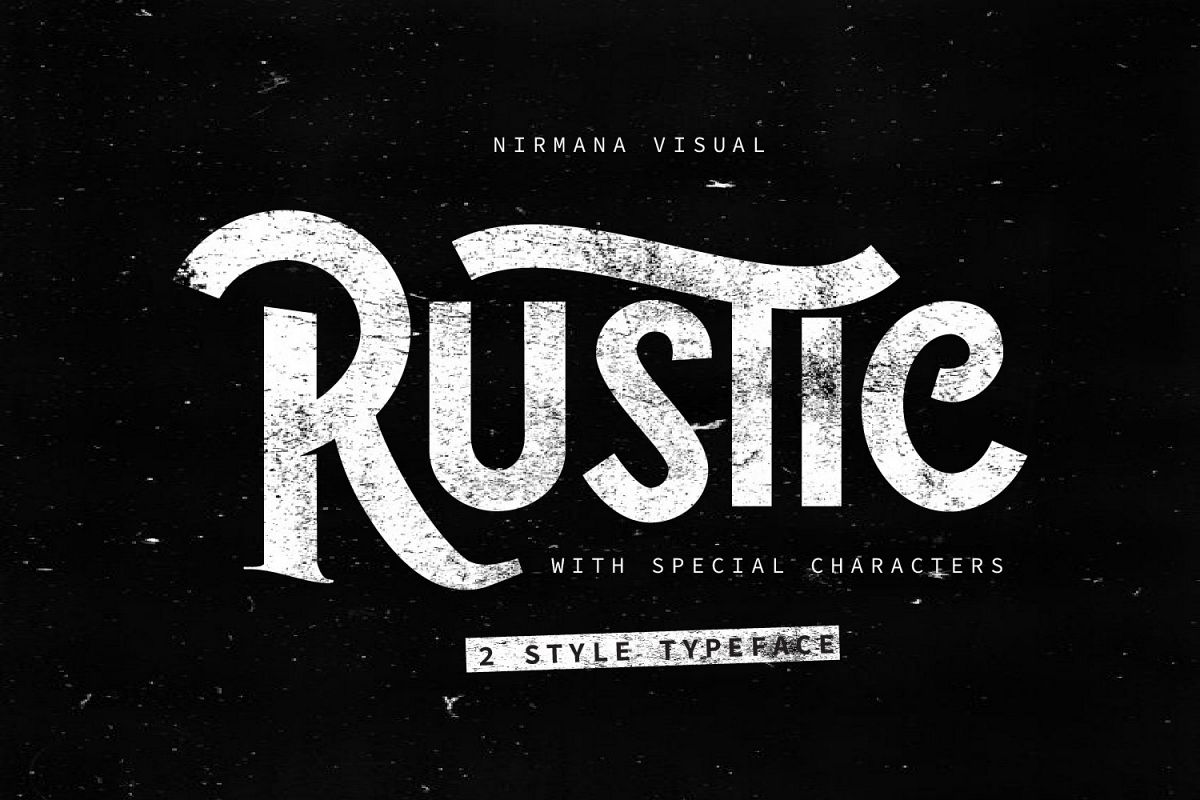
The Rustic - 2 style with special alternate!
Introducing: The Rustic! With special character style alternate!
The Rustic is perfect for branding projects, logo designs,
product packaging and more!
with special character style alternate!
(Stylic Alternates only Uppercase A-Z)